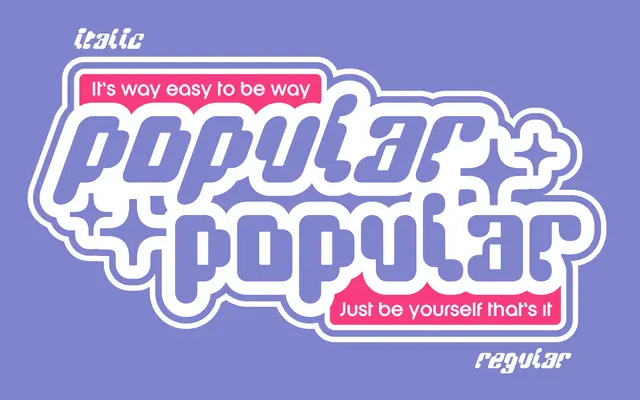
A Y2K-inspired display face offered in Regular and Italic, drawing on the digital aesthetics of the late 1990s.
Built around the visual language of Y2K design, this display font arrives in just two styles: Regular and Italic. Glyph coverage spans Basic Latin and Latin-1 Supplement with a handful of extended Latin characters, plus OpenType features including superscript, subscript, scientific inferiors and ordinals. Best suited to headline and poster use where a late-nineties digital flavour is the point.
Described explicitly as a Y2K-inspired display font, placing it firmly in the retro display category with digital and late-1990s aesthetic influences.